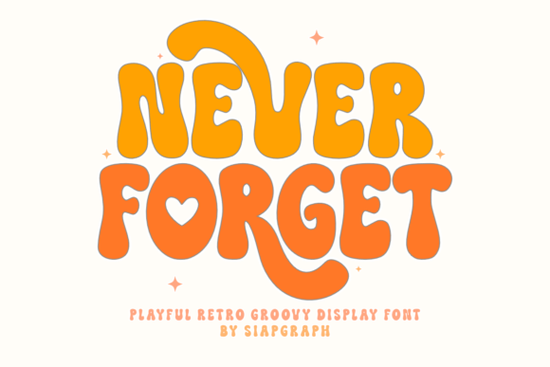
If you’ve been searching for a font that feels like a warm hug from the 1970s with just enough modern polish to keep it fresh you’ll want to take a closer look at Never Forget Font. It’s got those wavy, chunky letterforms that scream retro fun, but with clean lines and thoughtful spacing that make it surprisingly easy to use, especially if you’re into vinyl cutting or sublimation. Whether you’re designing t-shirts for Etsy, whipping up birthday invites, or creating SVG files for your next craft fair, this font brings personality without the headache.
What makes it stand out? For starters, there’s a sweet little heart subtly built into some of the characters not forced, not gimmicky, just enough to give your designs that affectionate, groovy vibe. And because it’s optimized for crafting workflows, you won’t run into weird cut errors or pixelated prints. That reliability matters when you’re running a small business or making gifts for loved ones.
Who is this font actually good for?
If you’re someone who spends time in Silhouette Studio, Cricut Design Space, or even Photoshop for print projects, you’ll appreciate how smoothly Never Forget Font plays with design software. It’s especially handy if you:
- Sell custom apparel or stickers on Print on Demand platforms
- Create party decor or wall art for nurseries and kids’ rooms
- Design seasonal graphics for Valentine’s Day, birthdays, or summer BBQs
- Need bold, readable text that still feels playful and personal
It’s also worth checking out if you like fonts with character literally. If you’ve enjoyed the bubbly bounce of Jax Font or the stacked rhythm of Wavy Stacker, you’ll find a similar energy here, just with more of that 70s soul. Even fans of western-style display fonts like Frontier might appreciate how Never Forget balances boldness with charm.
Will it work with my cutting machine or printer?
Yes and that’s one of its biggest strengths. The letterforms are designed with solid, connected paths so you don’t get thin strokes that break during weeding or tiny details that vanish in low-res prints. Whether you’re using heat transfer vinyl, sublimation paper, or digital downloads for clients, the font holds up cleanly at various sizes.
Pro tip: Pair it with a simple sans-serif for body text. Let Never Forget do the headline work, then let something neutral handle the fine print. You’ll keep the focus where it belongs without overwhelming your viewer.
What kinds of projects does it shine in?
This isn’t a “use it everywhere” kind of font it’s best when you want to add a nostalgic, upbeat mood. Think:
- Valentine’s Day shirts with phrases like “You’re My Groovy” or “Love is Never Forgettable”
- Birthday invites for milestone parties (especially 70s-themed ones!)
- Summer festival merch – tote bags, koozies, tank tops
- Nursery art with sweet affirmations like “You Are Loved” or “Little Sunshine”
- Social media quote graphics that need to feel personal, not corporate
It’s also surprisingly versatile across color schemes. Try it in mustard yellow on avocado green for full retro mode, or go soft with blush pink and cream for a modern twist. The thick strokes hold color well, so even neon or metallic vinyl looks crisp.
How does it compare to other playful display fonts?
Fonts like Charming Woman lean more elegant and script-like, while Never Forget is all about bold, bouncy energy. It’s less formal than serif display fonts and less chaotic than some grunge styles. If you’ve ever struggled with fonts that look great as thumbnails but fall apart when you scale them or cut them this one’s built to avoid those pitfalls.
And unlike many trendy fonts that feel dated after a season, the 70s revival has staying power. That means your designs won’t feel “last year” by next summer.